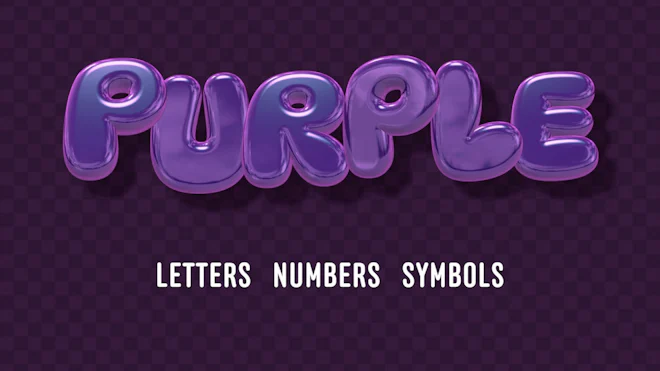
This stock motion graphics video pack includes 48 clips of glossy purple letters, numbers and symbols on a transparent alpha channel in a seamless loop.